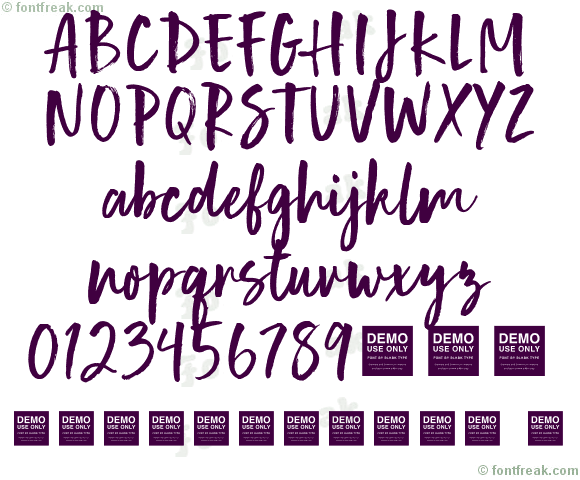
Human Nature
The Human Nature font by BLKBK Fonts is a captivating handwritten typeface that beautifully merges the organic feel of nature with a modern aesthetic. As a decorative font, it features smooth, flowing strokes that mimic natural handwriting, offering an informal yet stylish approach to typography. The stroke weight is consistent, creating a harmonious balance that enhances readability while adding a personal touch to any design project. The slightly varied spacing between letters contributes to its casual vibe, making each word appear inviting and approachable.
This font is versatile, ideal for a variety of creative applications. It shines in wedding invitations, where its elegant yet relaxed style can evoke warmth and intimacy. Additionally, it works wonderfully for restaurant menus, giving a charming and friendly impression that can attract customers. Graphic designers will appreciate its suitability for branding projects, especially for businesses focused on eco-friendliness or artisanal products. Moreover, content creators can use the Human Nature font for social media graphics, making their posts stand out with a unique, hand-drawn quality.
What sets the Human Nature font apart is its ability to convey authenticity and charm, striking a balance between modernity and the essence of natural handwriting. It resonates with audiences seeking a touch of warmth in their designs, making it a compelling choice for anyone looking to infuse their work with personality and elegance.